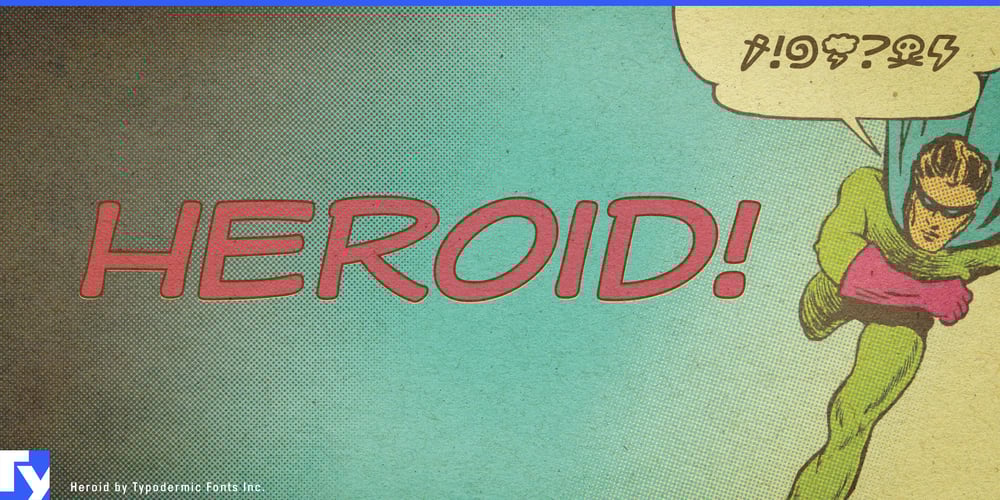
Heroid Font Family was designed by Ray Larabie and published by Typodermic. Heroid contains 2 styles and family package options. Attention, citizens of the design universe! Prepare for the arrival of Heroid, the typeface that leaps tall letterforms in a single bound and fights the never-ending battle against typographic mediocrity. This isn’t just a font—it’s a force of nature, capable of transforming mild-mannered layouts into eye-popping visual spectacles faster than a speeding bullet.Forged in the secret typographic laboratories hidden beneath Metropolis (or perhaps just a really cool design studio), Heroid emerges with letterforms so bold and daring, they make other fonts look like mere mortals. Each character stands proud and resolute, a sentinel of style ready to defend your designs against the villainous forces of blandness and conformity. But Heroid isn’t a one-trick pony with a cape. Oh no, this typeface comes with an arsenal of superpowers at its disposal. Need a design that packs a punch? Heroid Regular is your trusty sidekick, delivering clear, impactful messaging with the reliability of a Boy Scout from Smallville. But when the stakes are high, and you need to save the day, Heroid Bold swoops in, muscles flexing, ready to make your words leap off the page and into action.And just when you thought Heroid couldn’t get any more super, it reveals its secret identity—a selection of alternate caps that transform faster than you can say “phone booth quick-change.” These alternative characters aren’t just mild-mannered variations; they’re full-blown superheroes in their own right, ready to give your designs the unique flair they deserve. Mix and match to create combinations more unexpected than a plot twist in a silver age comic book. But Heroid’s greatest power? Its ability to speak in tongues. This linguistic shapeshifter is fluent in more European languages than a United Nations interpreter. From the fjords of Norway to the plains of Hungary, Heroid stands ready to deliver your message with crystal clarity and superhuman style.So, whether you’re crafting a comic book that would make Stan Lee proud, designing a logo that needs to pack more punch than a caped crusader’s right hook, or simply want to inject some heroic vigor into your everyday designs, Heroid stands ready, cape fluttering in the breeze of your creative inspiration. Don’t let your designs be the mild-mannered Clark Kent of typography. Choose Heroid, and watch as your words take flight, soaring above the skyline of ordinary fonts to a place where creativity knows no bounds.